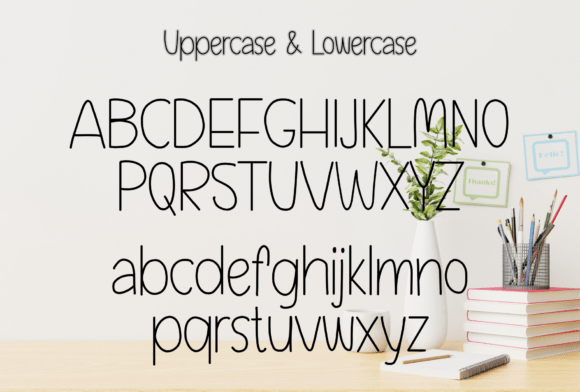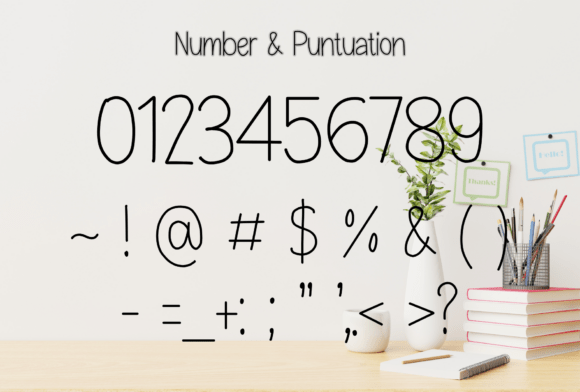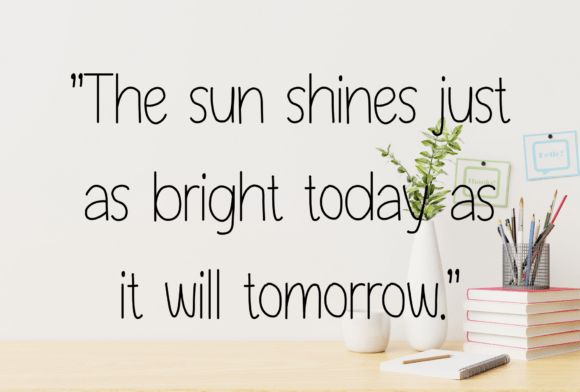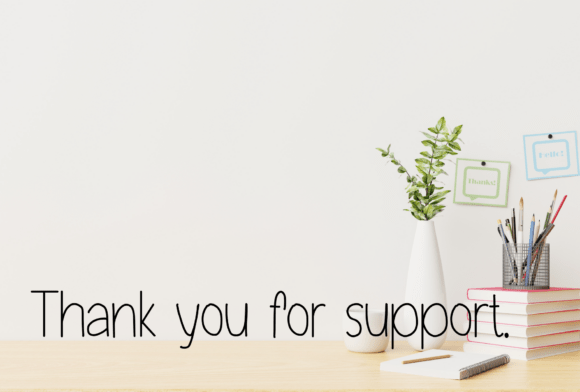
Introduction to Same Yesterday Font
Have you ever stared at a blank page, struggling to bring your creative vision to life? You’re not alone. As designers, we often find ourselves searching for the perfect font to elevate our projects and convey our message. That’s where the Same Yesterday Font comes in – a clean and charming handwritten font that will make your digital creations shine.
This beautifully crafted font is designed to capture the essence of everyday handwriting, making it perfect for a wide range of creative projects. With its slender lines and natural flow, Same Yesterday Font is incredibly versatile and adds a personal touch to every word. Whether you’re designing educational resources, digital planners, or social media graphics, this font is sure to make your content stand out.
Key Features of Same Yesterday Font
- Unique characteristics: Same Yesterday Font features a distinctive and quirky design that adds a touch of personality to any project.
Honest Review: Same Yesterday Font
I recently stumbled upon the Same Yesterday Font and I must say, I was pleasantly surprised. As a designer, I’m always on the lookout for high-quality design resources that can elevate my creative projects.
- High-quality font design with a unique aesthetic.
- Perfect for creative projects that require a touch of nostalgia.
The Same Yesterday Font is a great addition to any designer’s toolkit. Its vintage vibe and high-quality design make it a great choice for a wide range of projects, from graphic design to digital art.
- May not be suitable for projects that require a modern or minimalist aesthetic.
- Not as versatile as some other fonts, but still a great choice for specific projects.
Overall, I’m impressed with the Same Yesterday Font and would recommend it to designers looking for a unique and high-quality design resource.
The Same Yesterday Font is ideal for creative projects that require a unique and stylish text effect. It’s commonly used for social media graphics, advertising, and editorial design. To get the most out of this font, experiment with different font sizes, colors, and styles to create a visually appealing design.